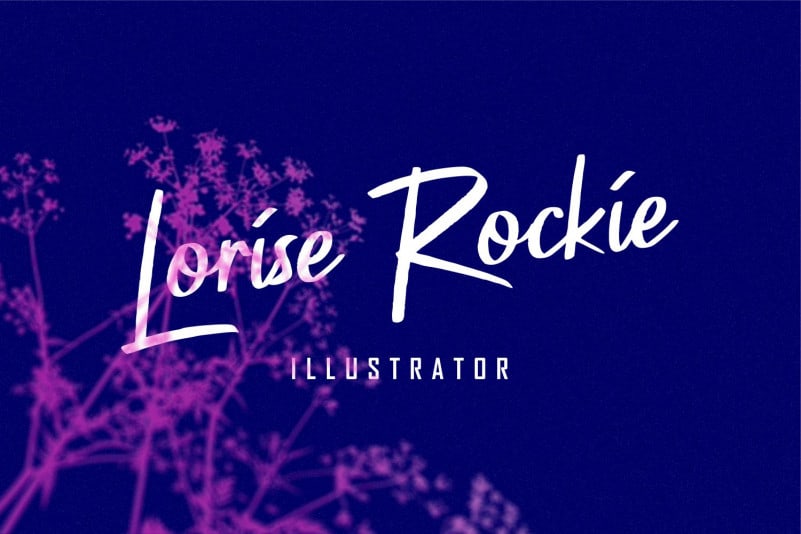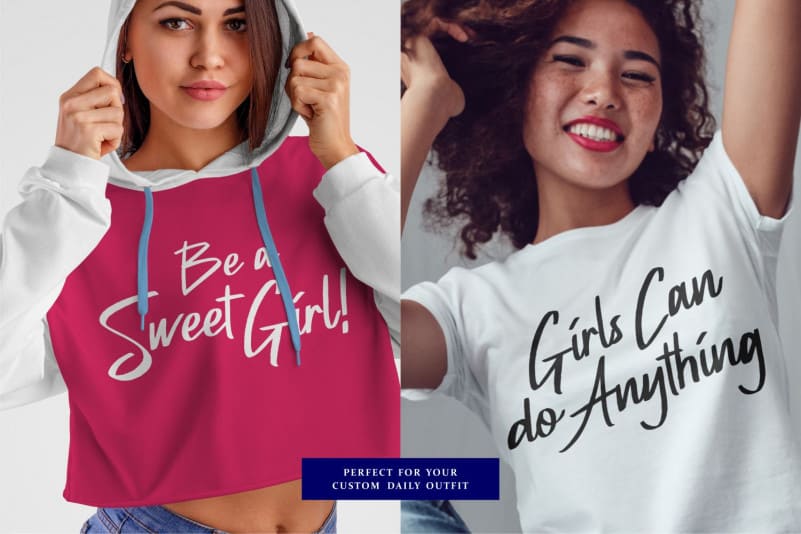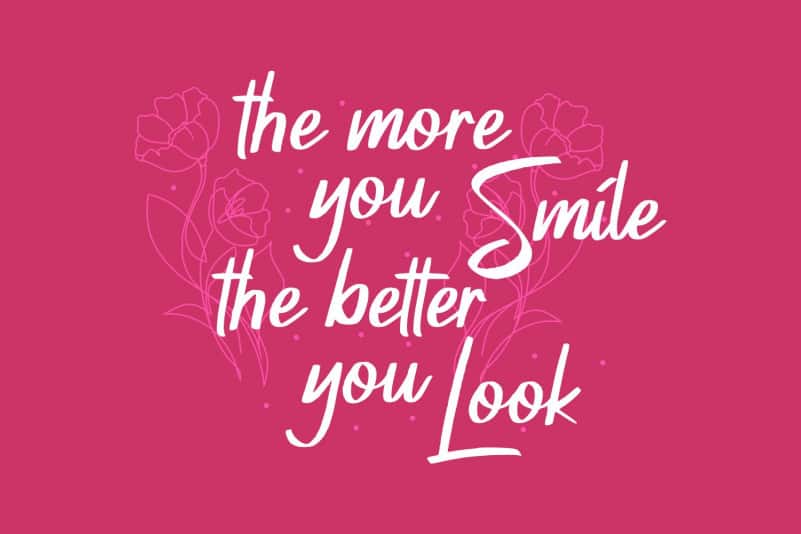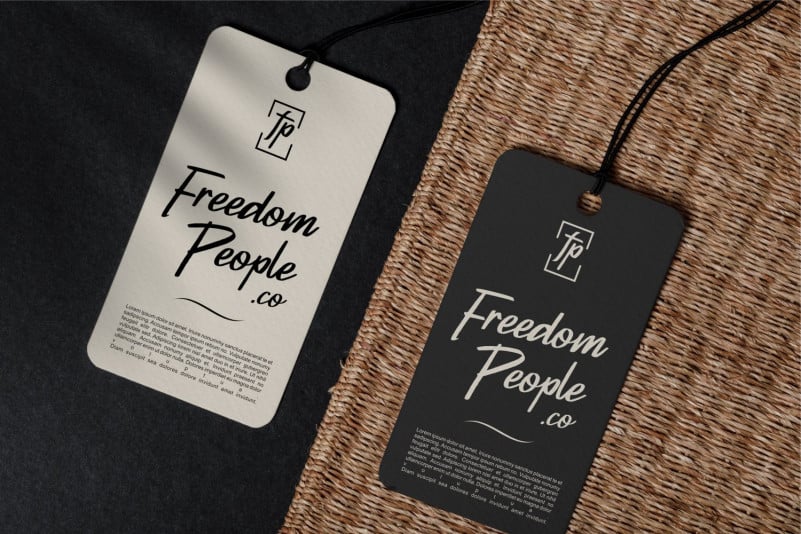
Petter Secret Brush Font
Petter Secret Brush Font is a sweet brushed script font. It has a nice flow and a versatile style. Defined by an elegant touch, perfect for your favorite projects, this font will help you create spectacular designs!